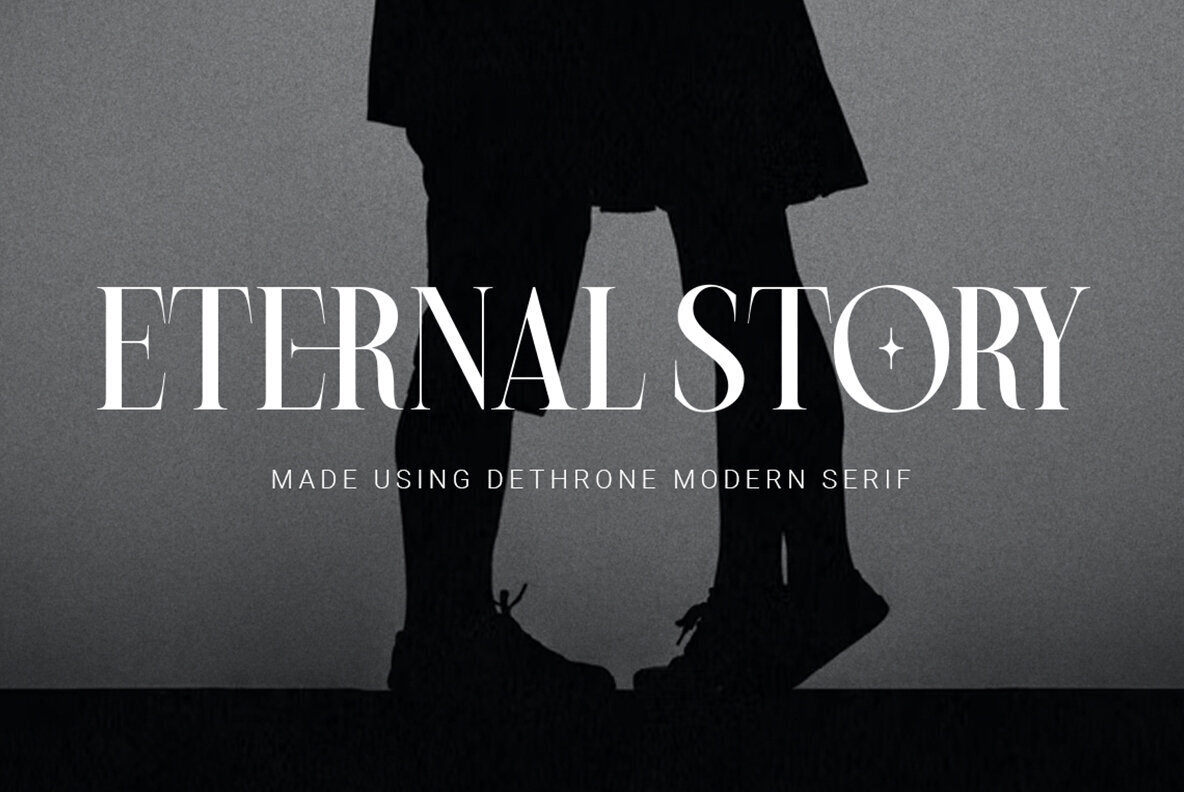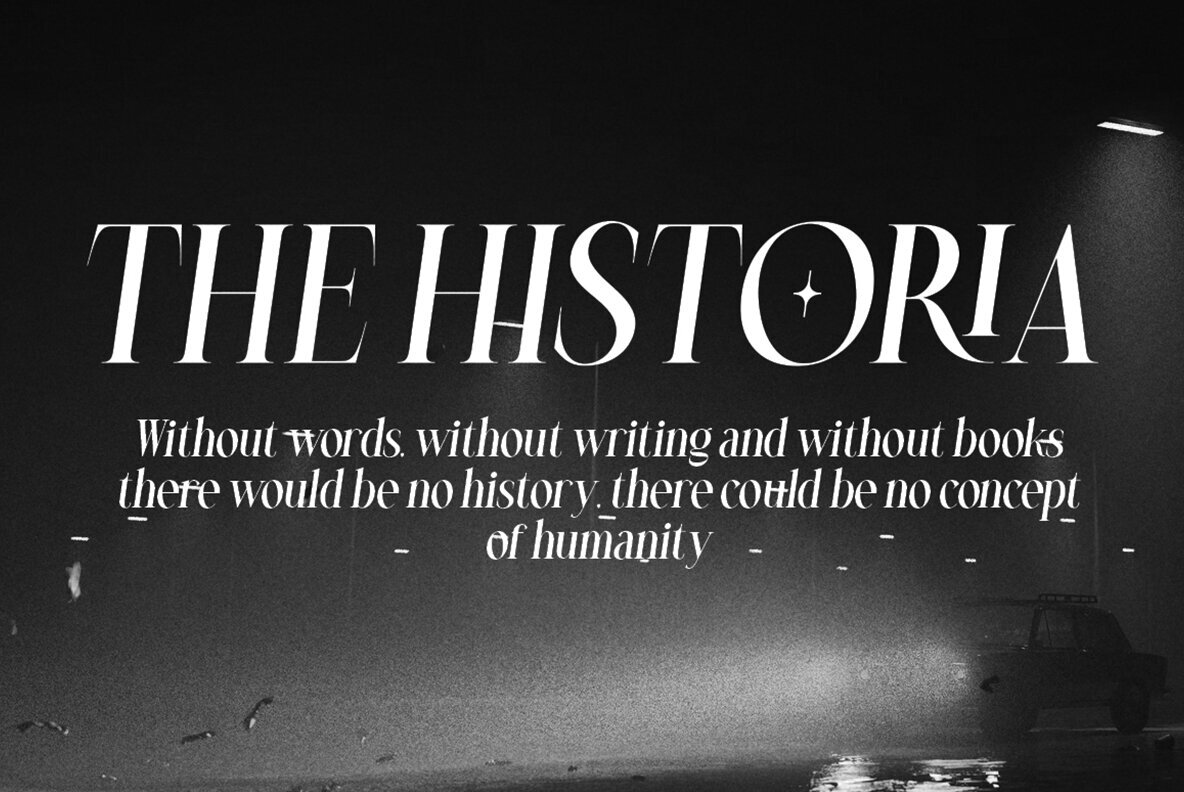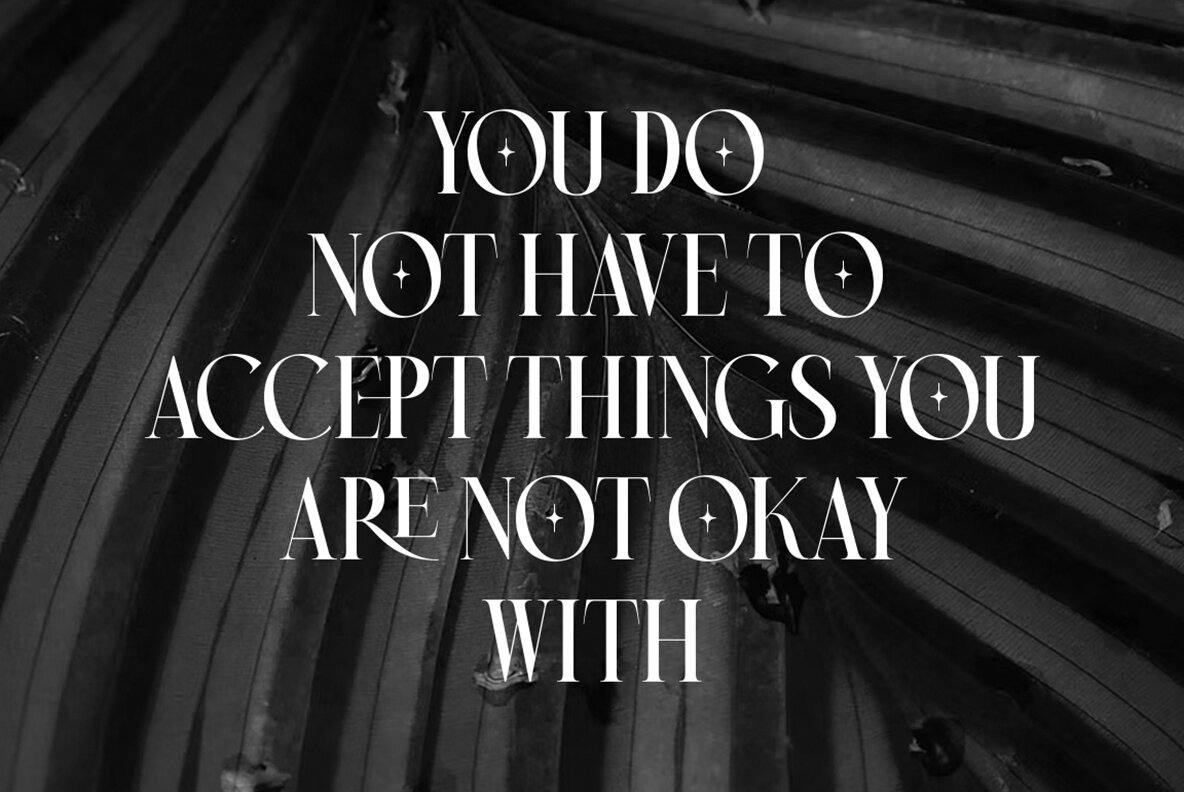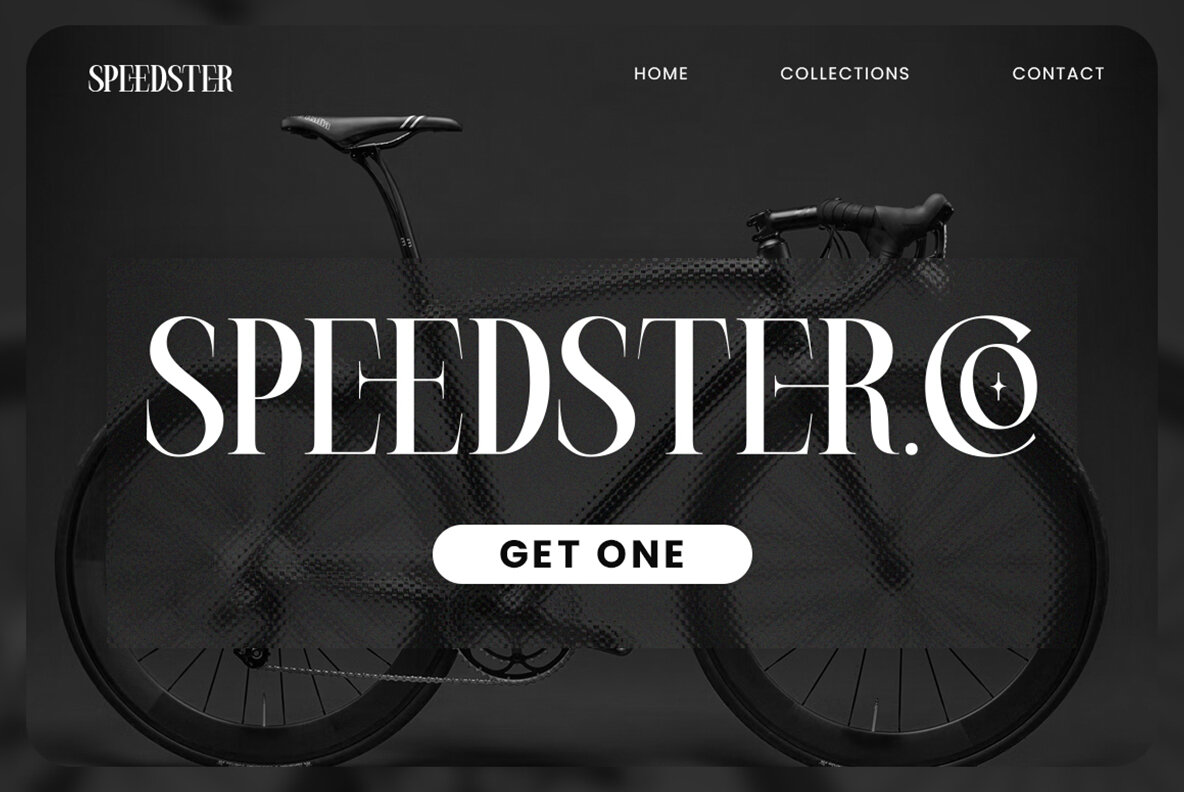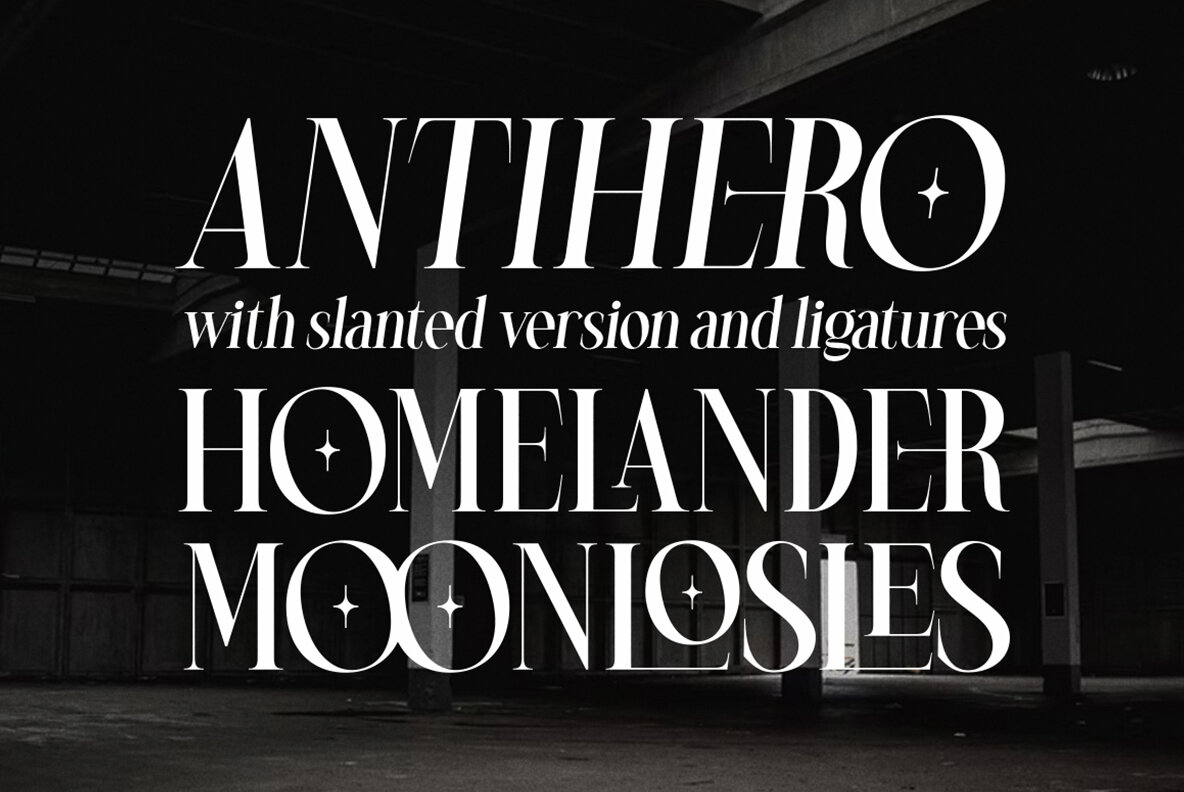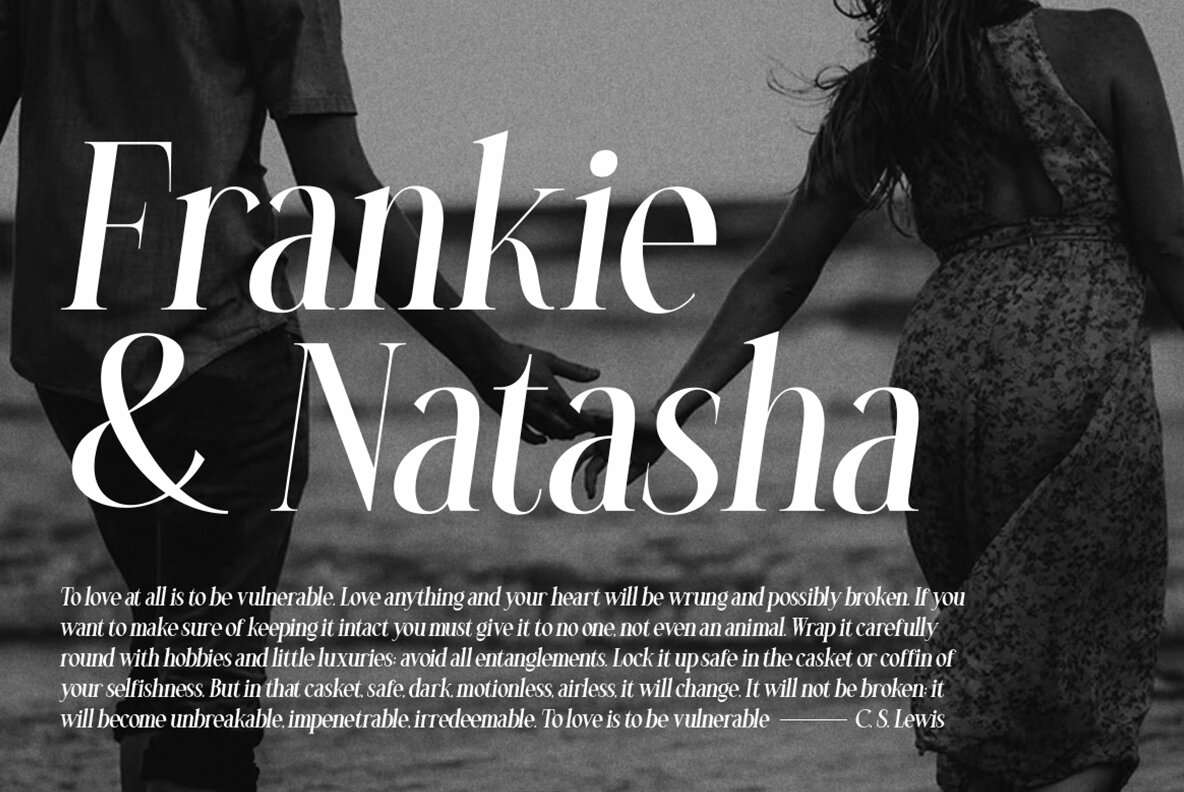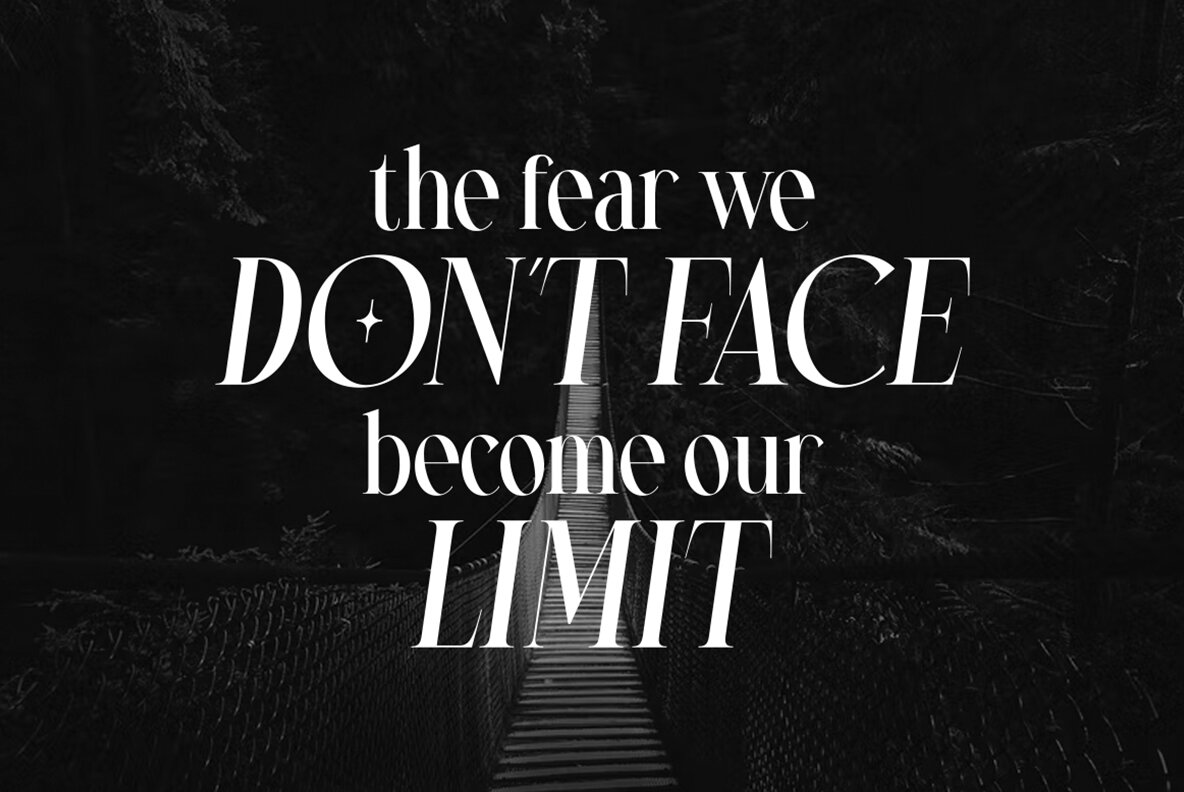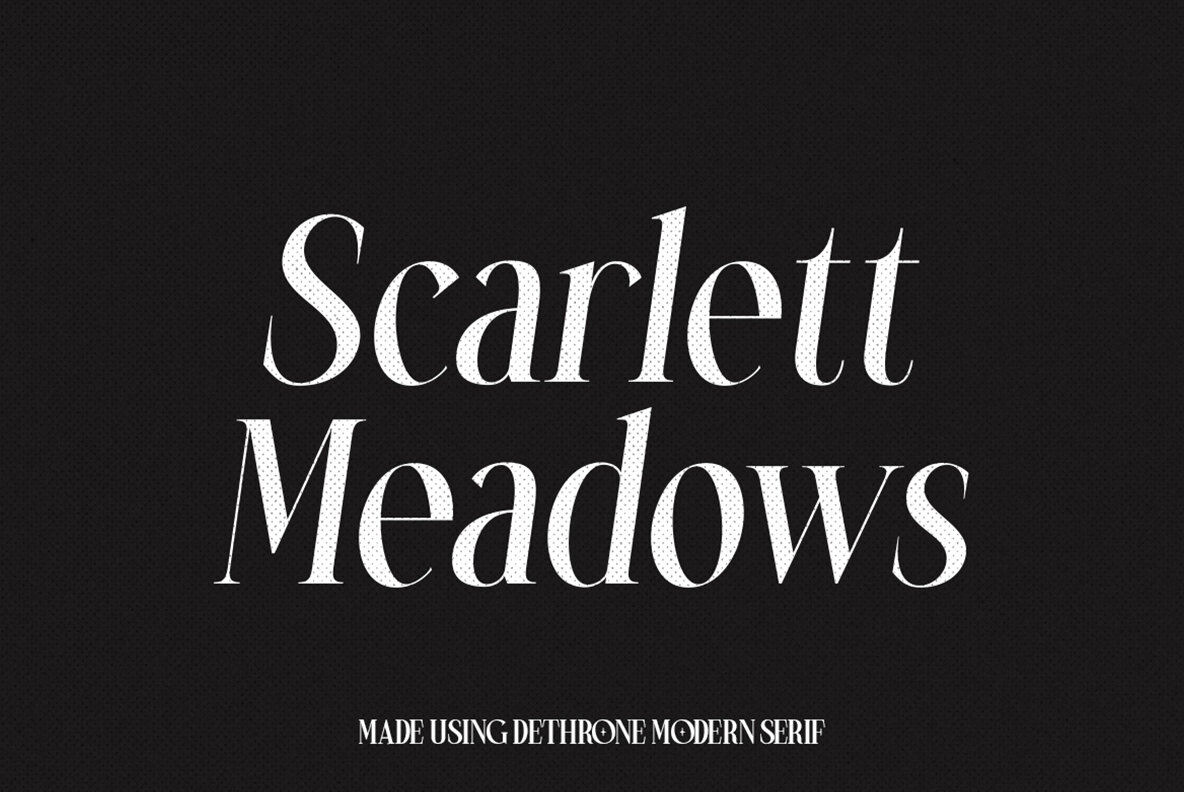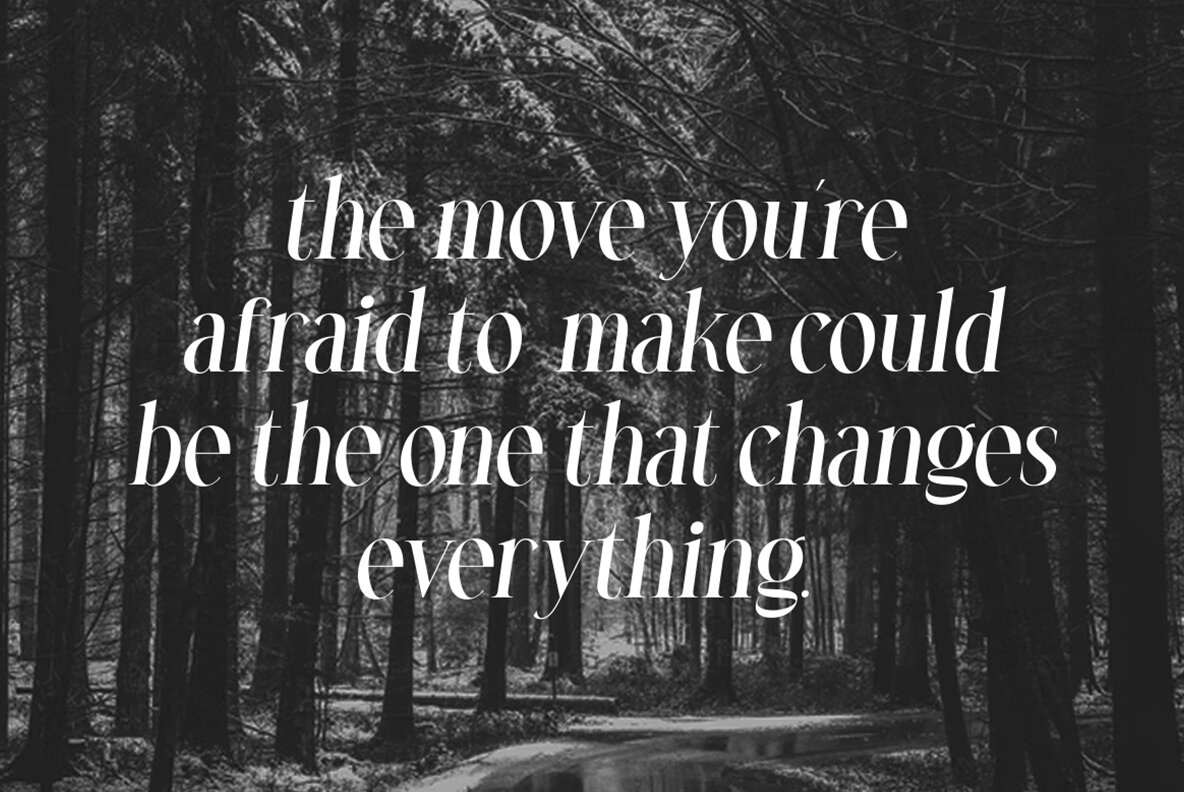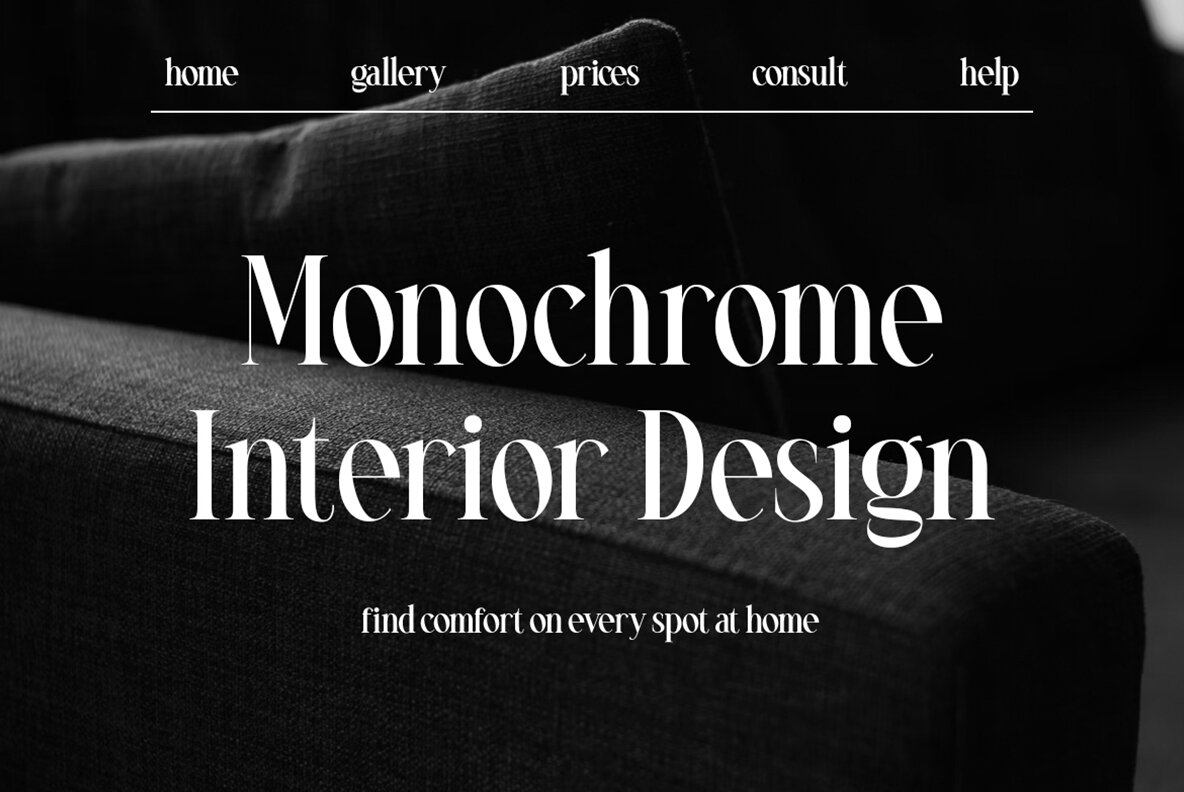
Dethrone Font
Dethrone by Rillatype presents a modern serif font that encapsulates a crisp and precise aesthetic. Designed to enhance a variety of creative ventures, Dethrone is an excellent choice for branding projects, headlines, logotypes, packaging, invitations, and advertising.Dethrone: A Clean and Sharp Modern Serif